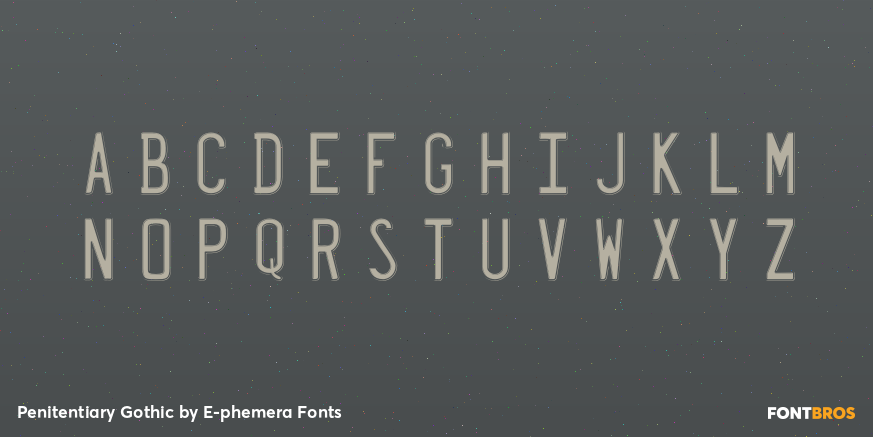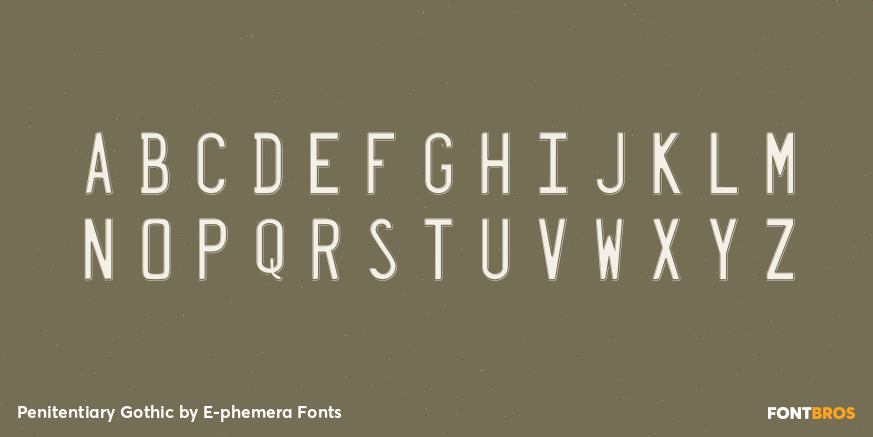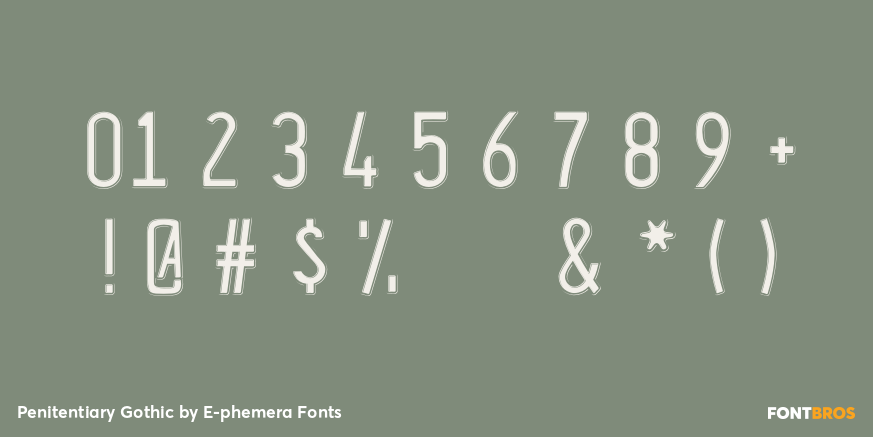
Penitentiary Gothic
Font Family by E-phemera Fonts
Penitentiary Gothic is a digital recreation of the letters used on California state license plates, designed in order to make props for movies and television shows.
The regular style is meant to be used on its own, but the other four styles are meant to be used one on top of another in different colors to create an embossed 3D effect. For best results, use the fill style in a dark color on top of a light colored background. Put the lolite style directly on top of the fill style in 10 - 30% of the background color. Put the hilite style directly on top of that in 10 - 30% of your fill color. Put the shadow style directly on top of that using your background color plus 50 - 80% black.